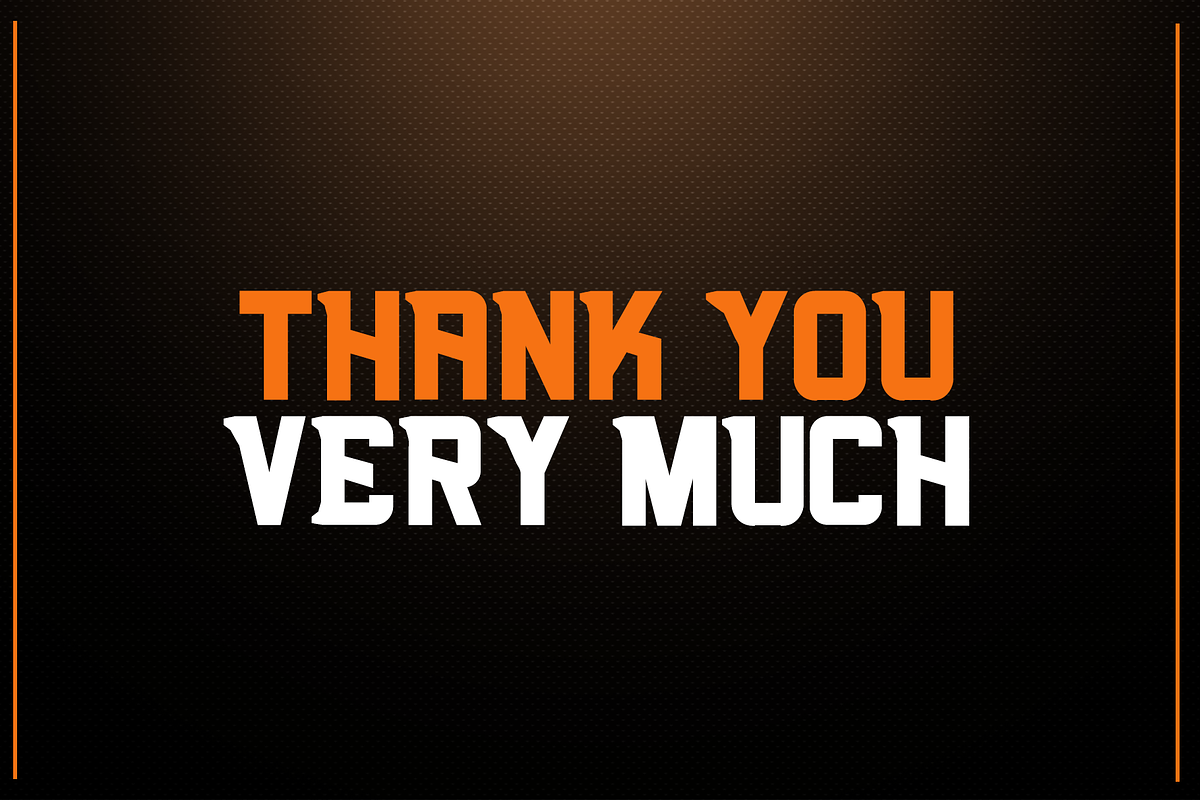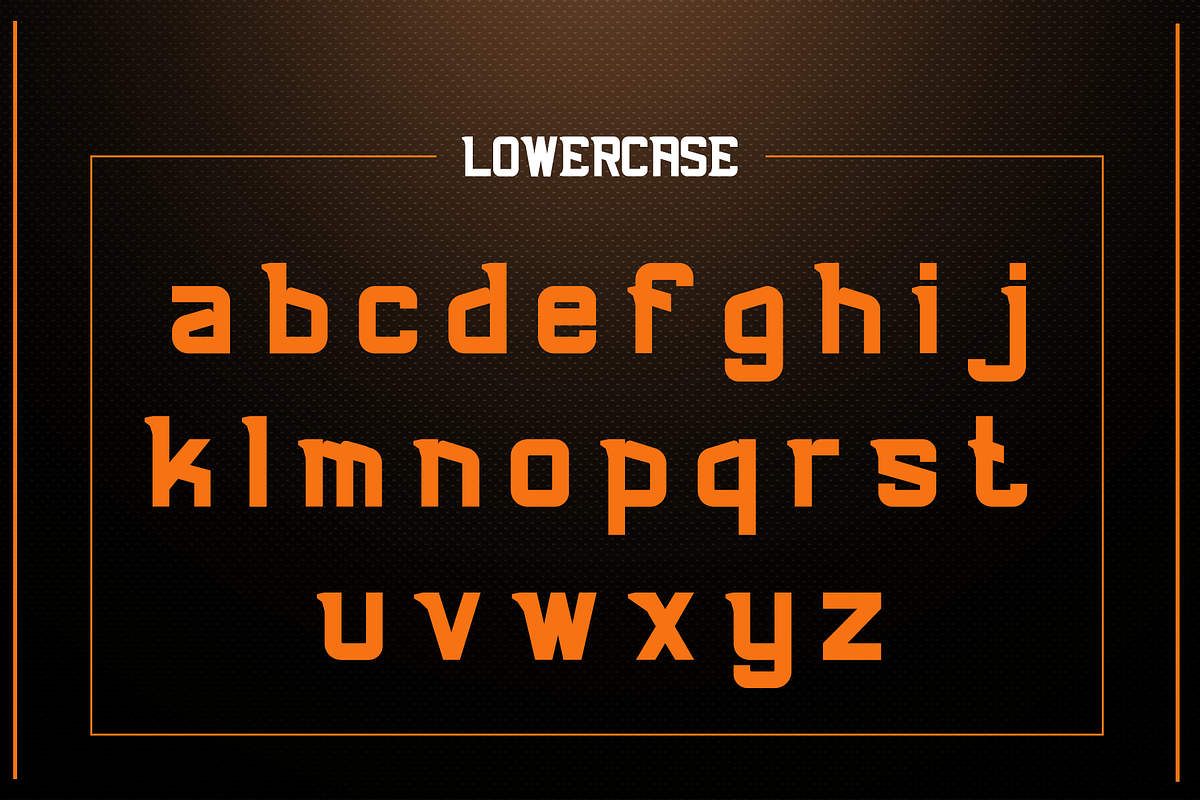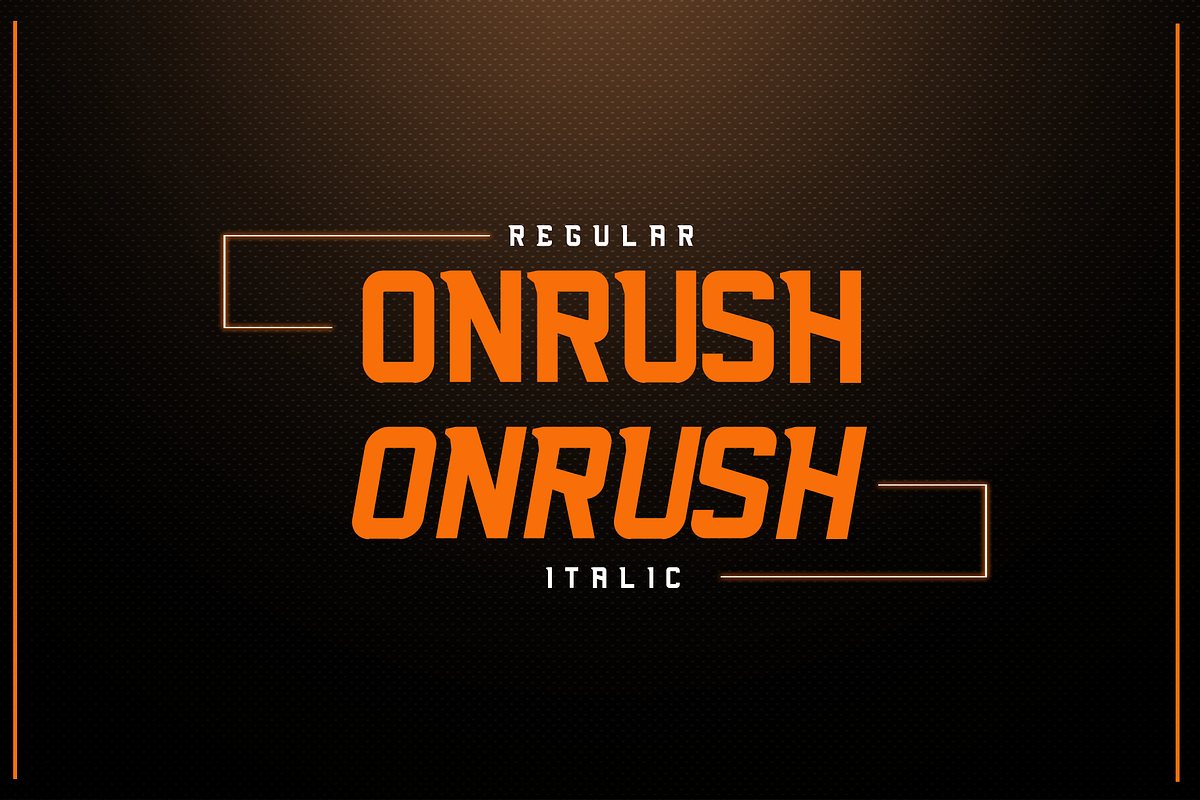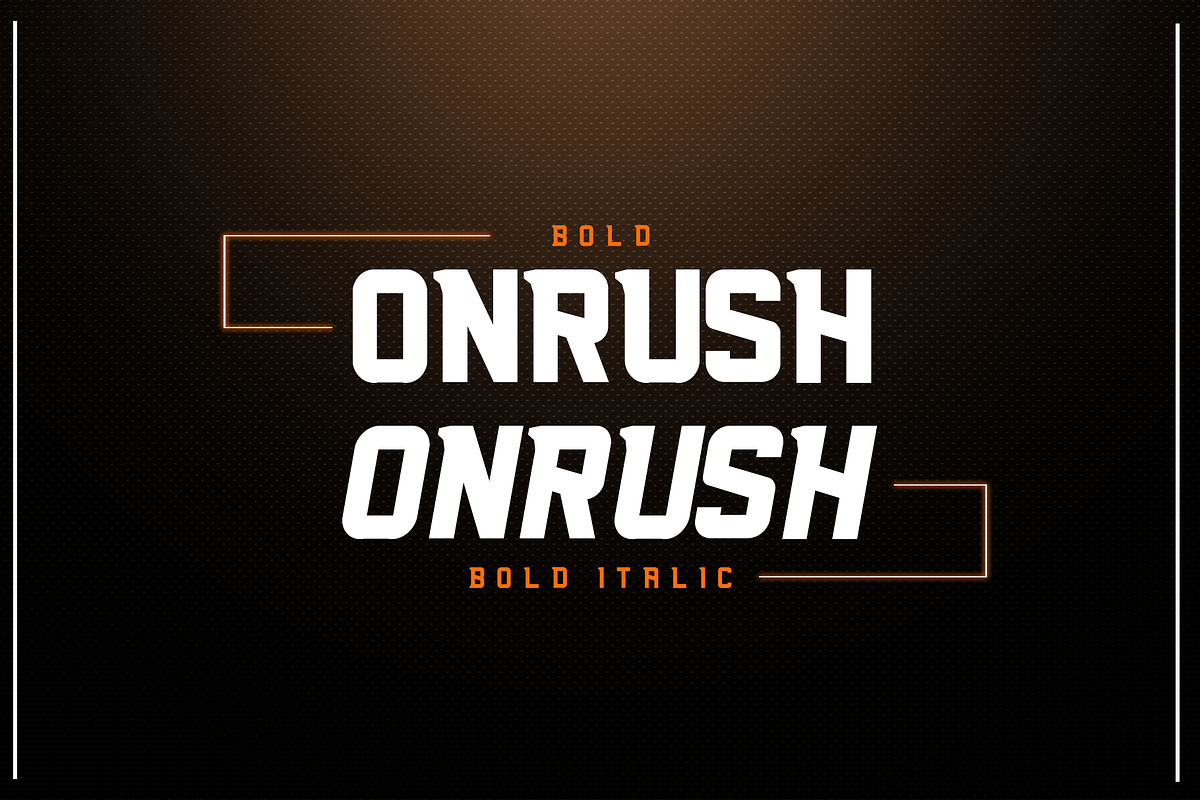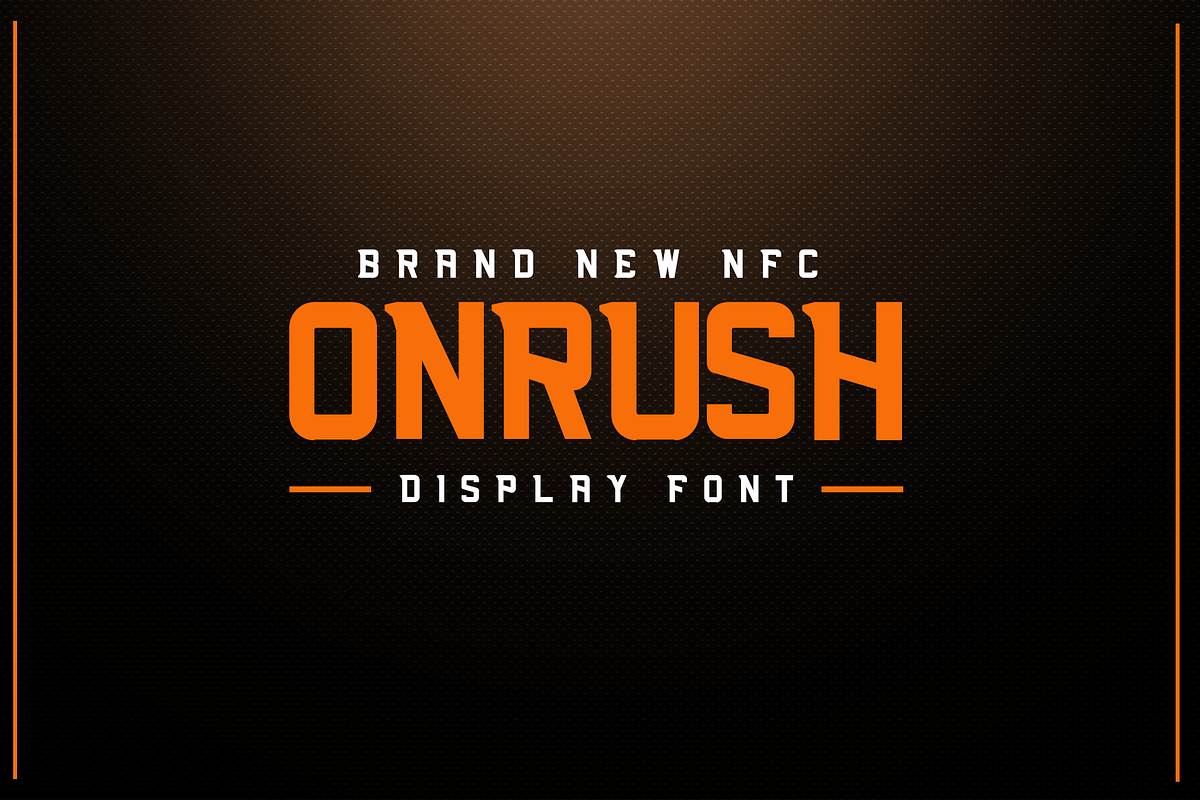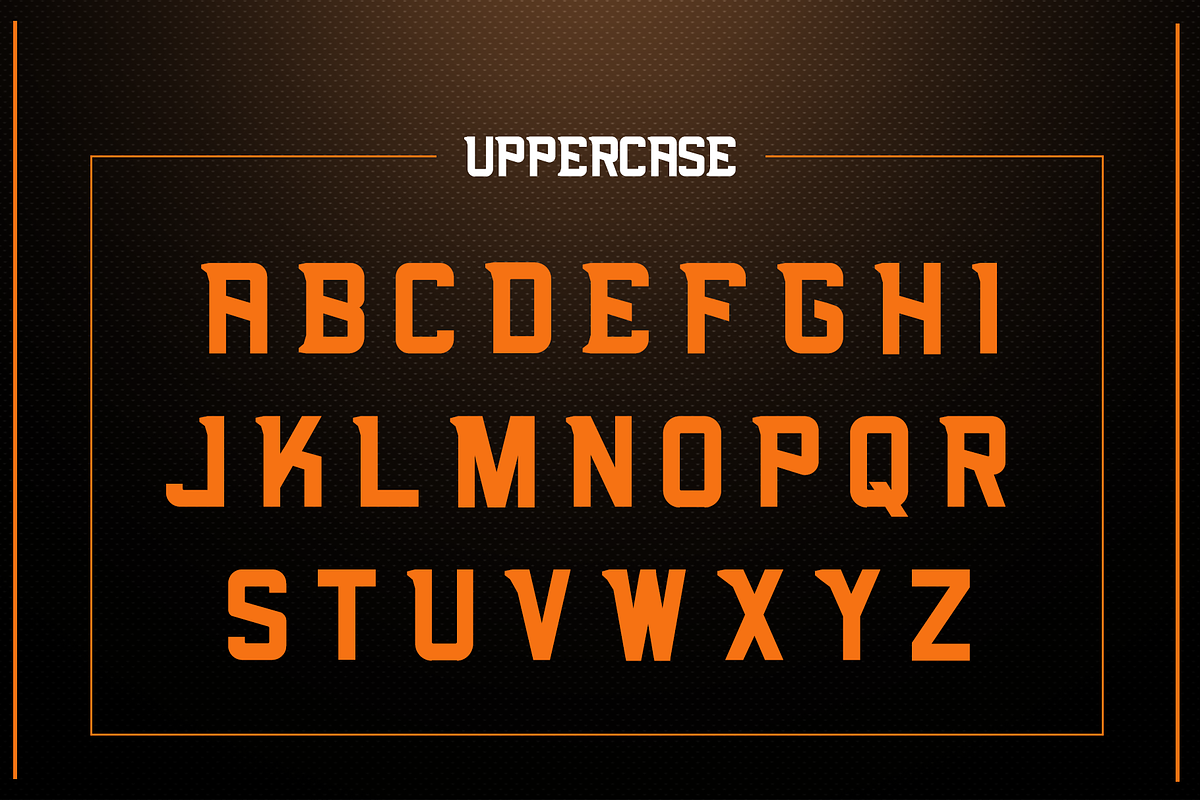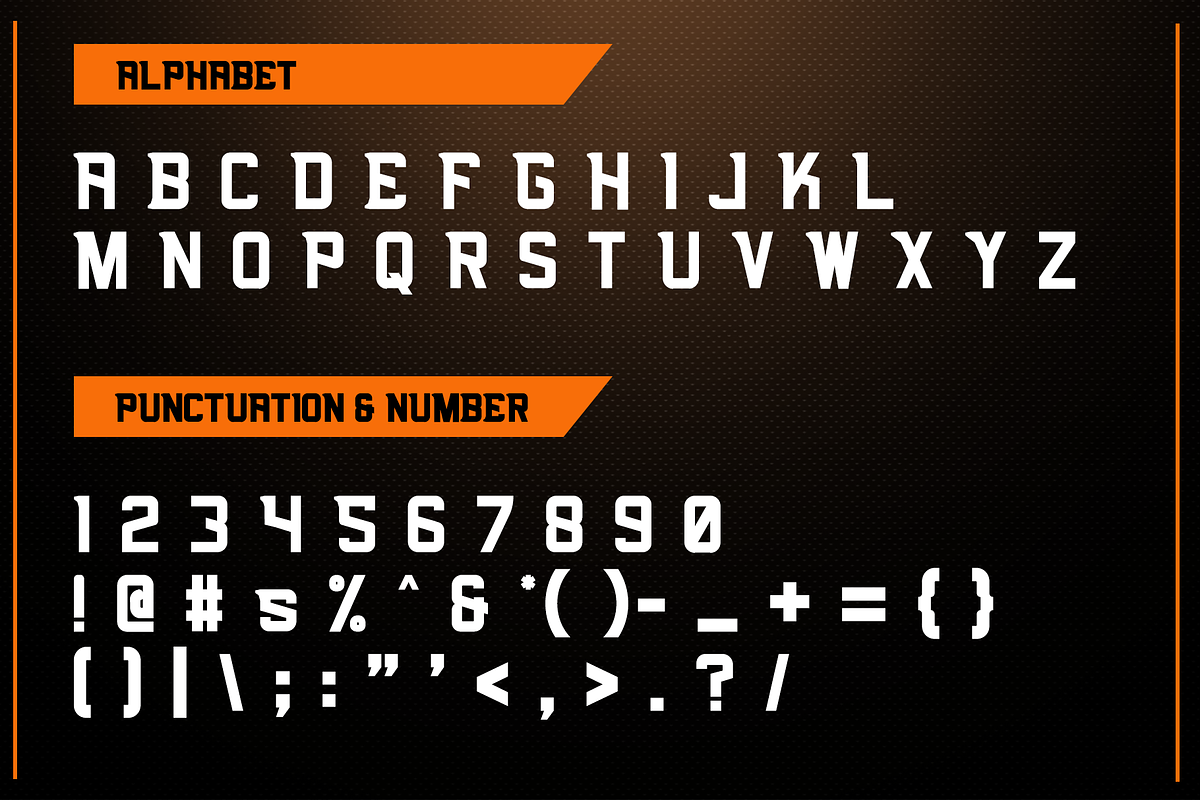
NFC ONRUSH DISPLAY FONT
NFC Onrush Exclusive Display font, is our new item that suitable for your team logo, or community logo.
Great for Logo, Sticker, Jersey, Invitation Card, Brochure, etc.
- NFC ONRUSH Regular
- NFC ONRUSH Italic
- NFC ONRUSH Bold
- NFC ONRUSH Bold Italic